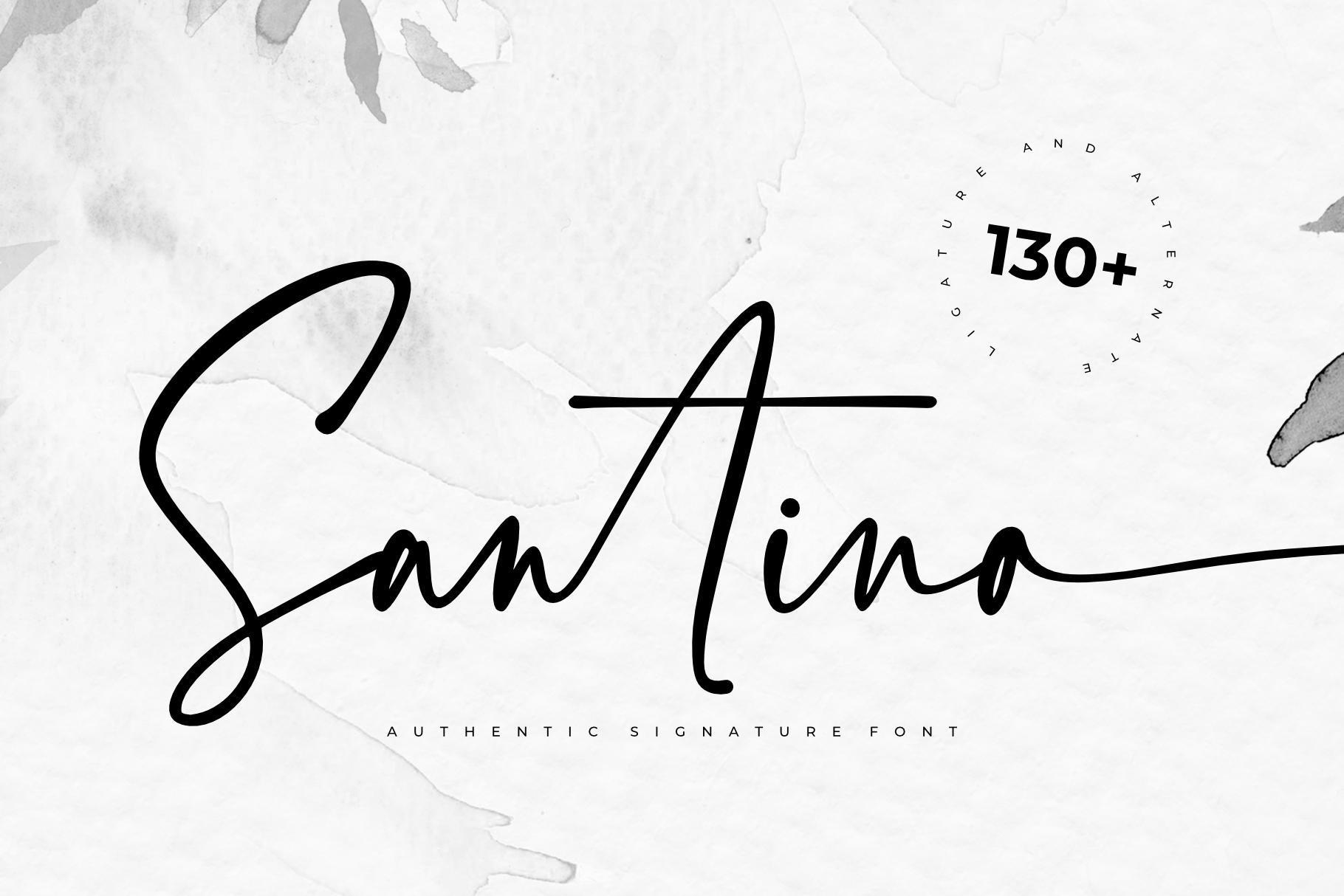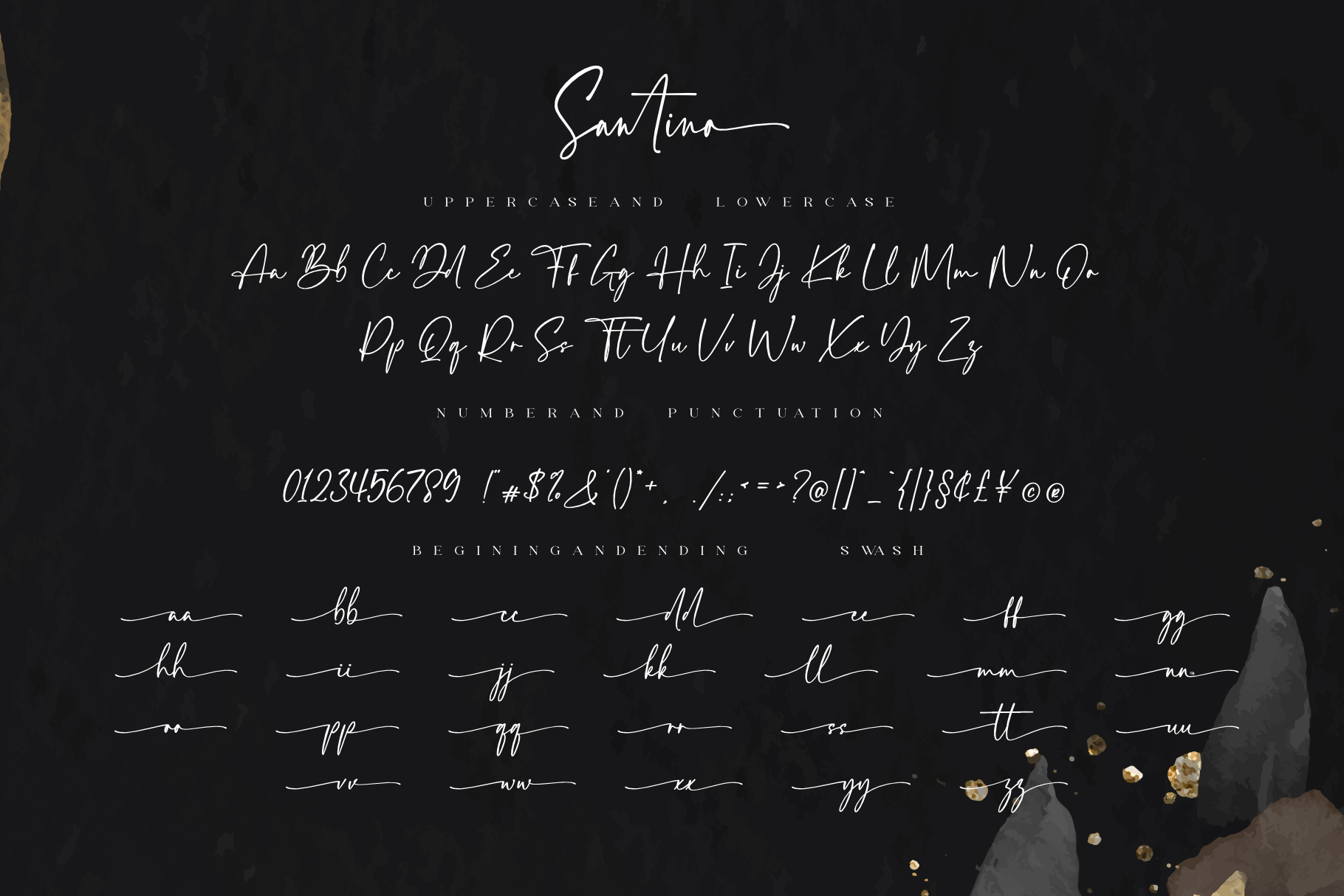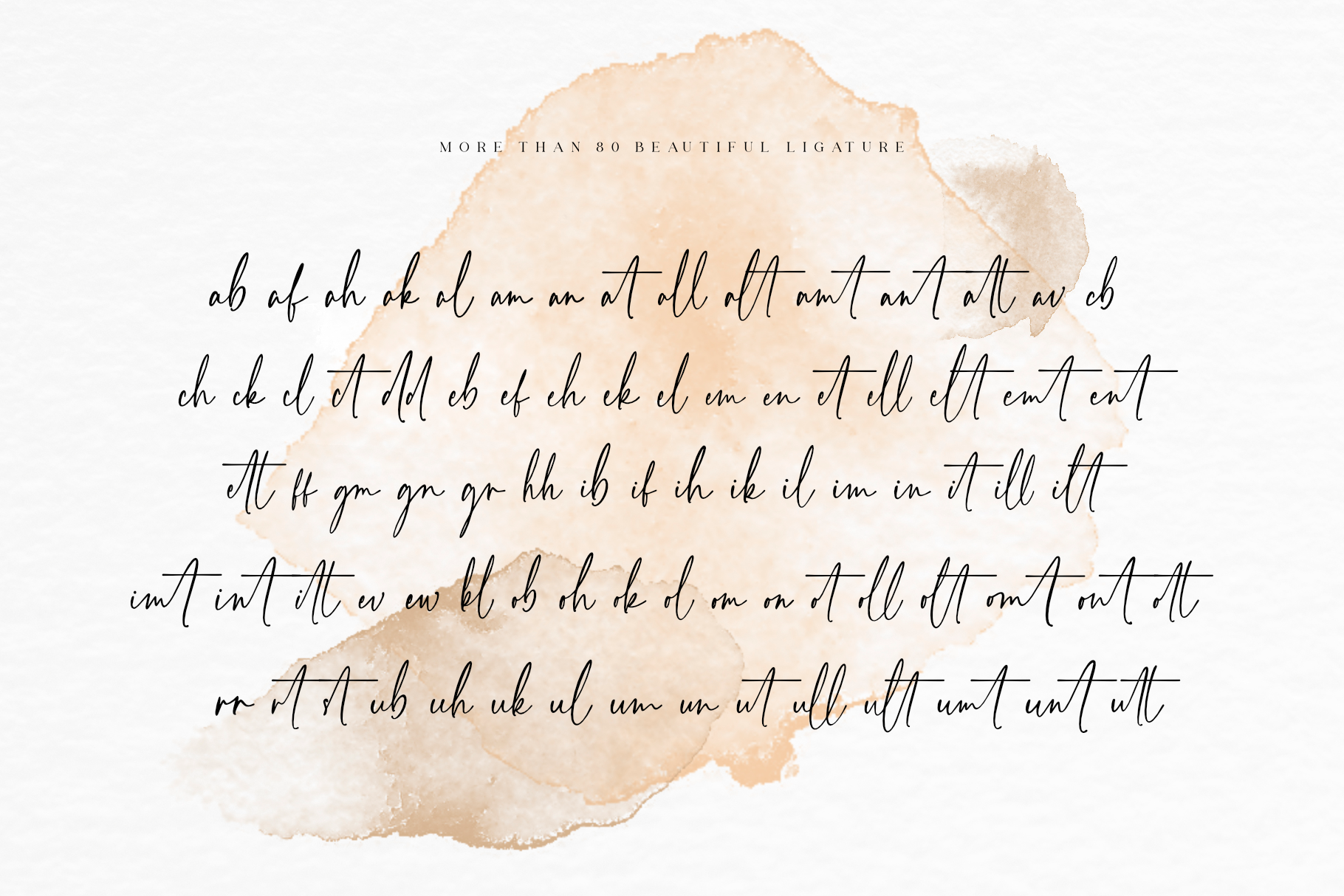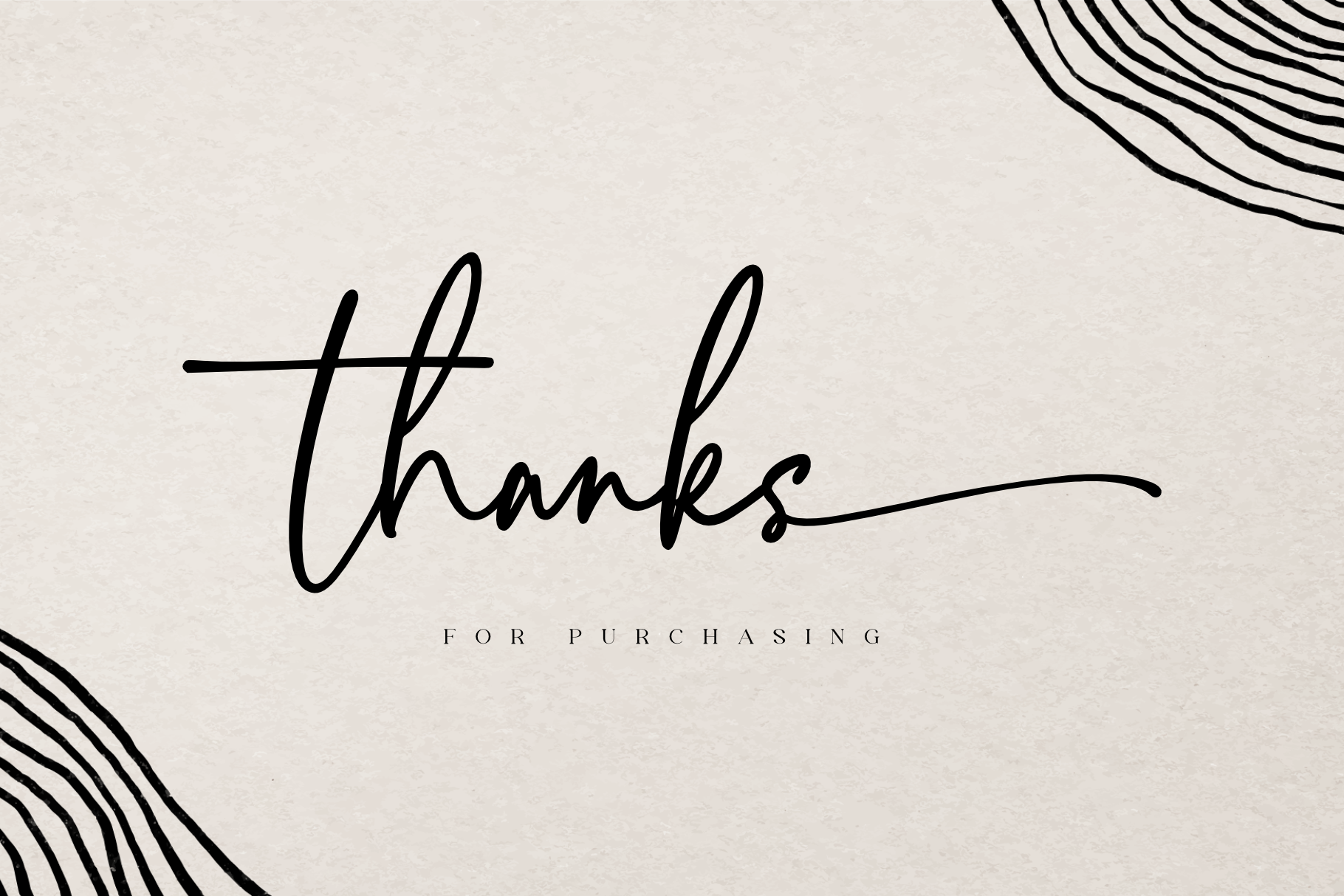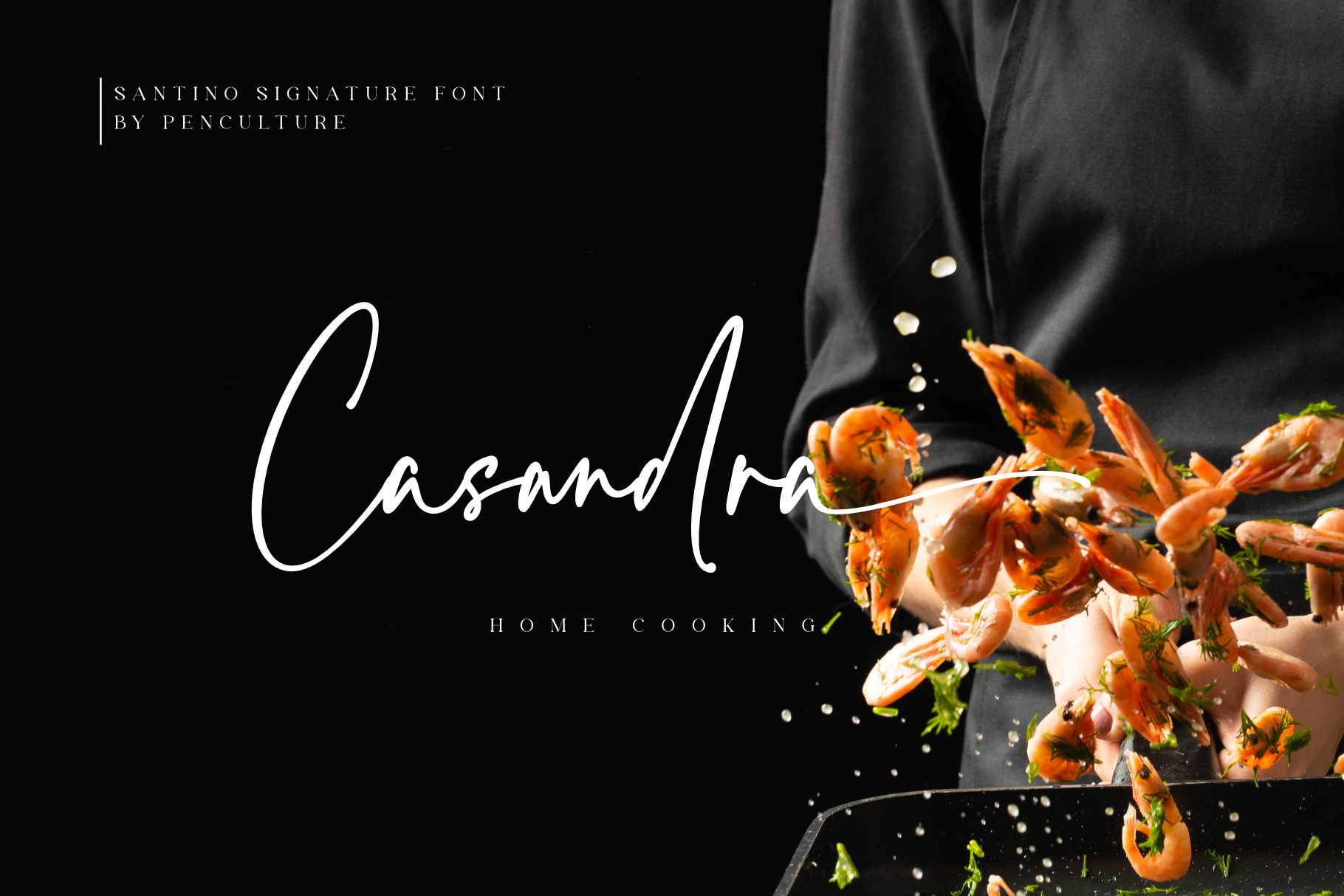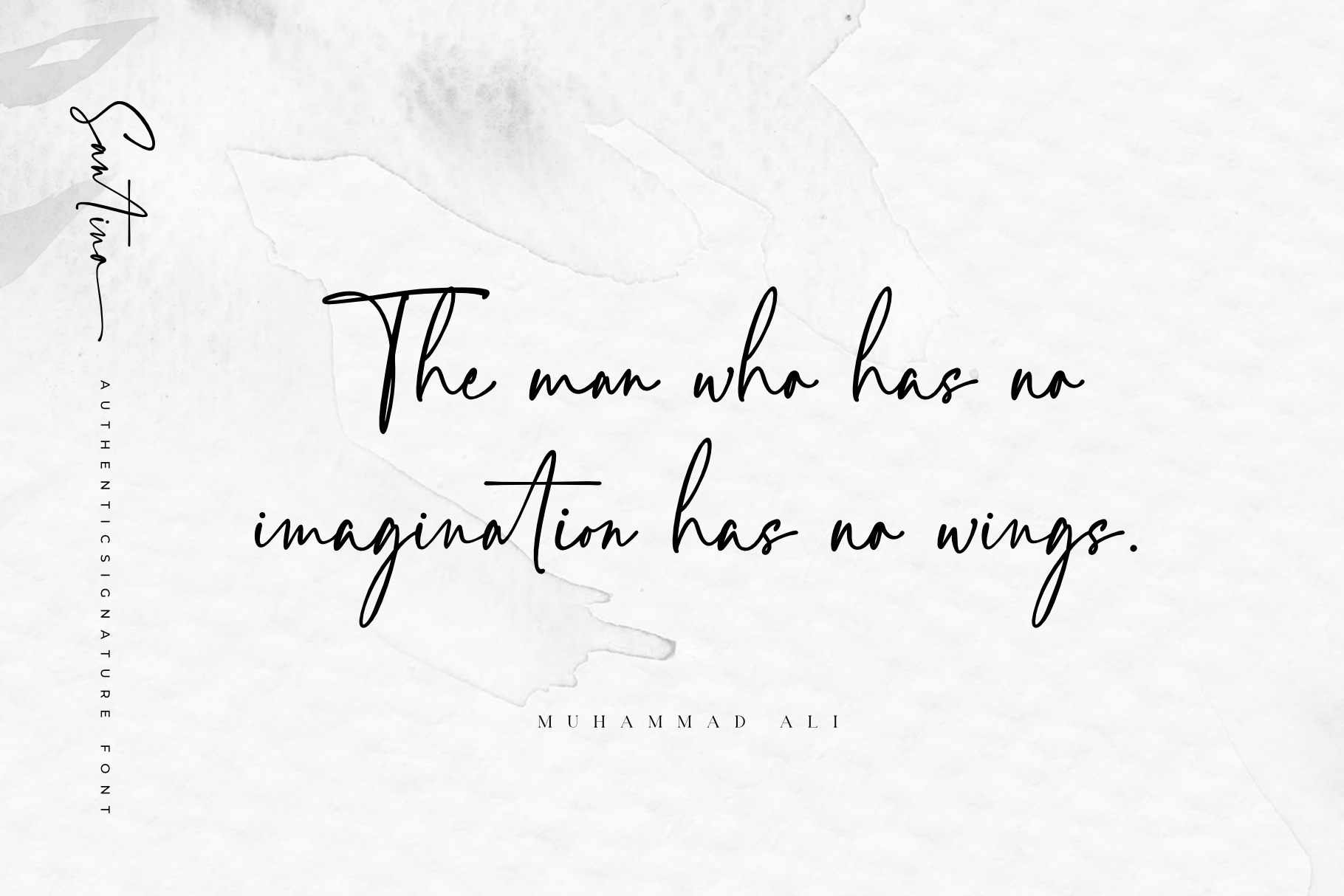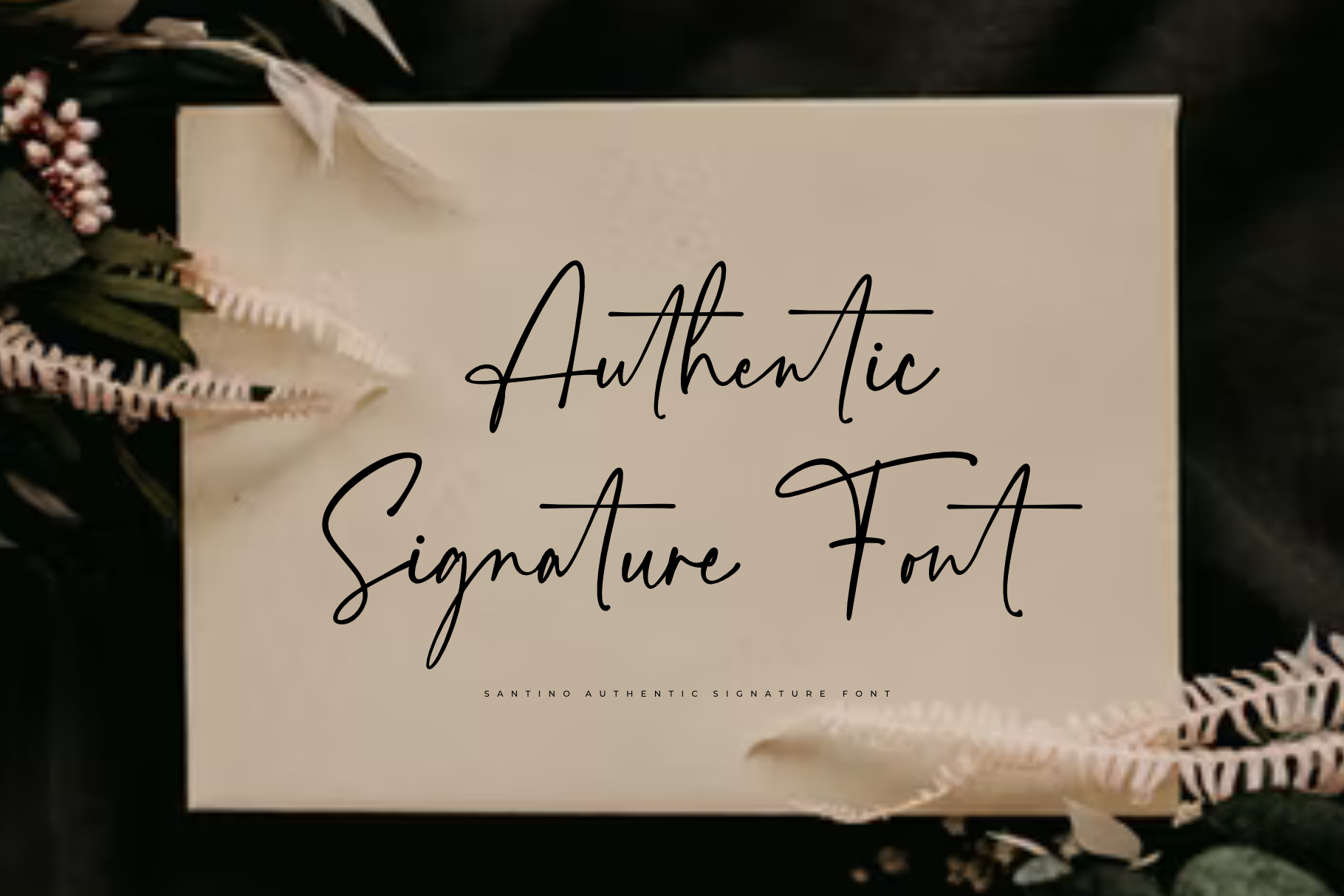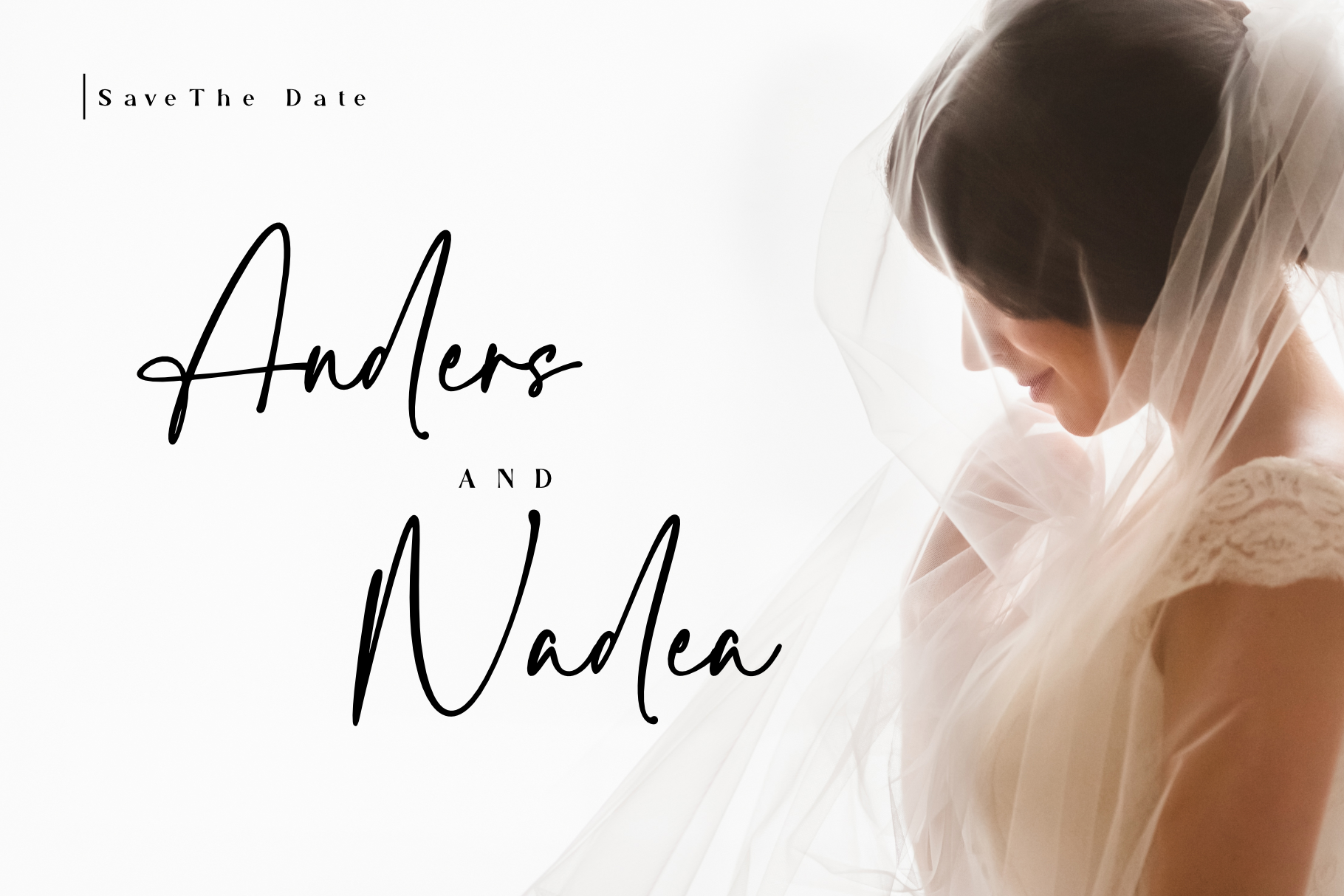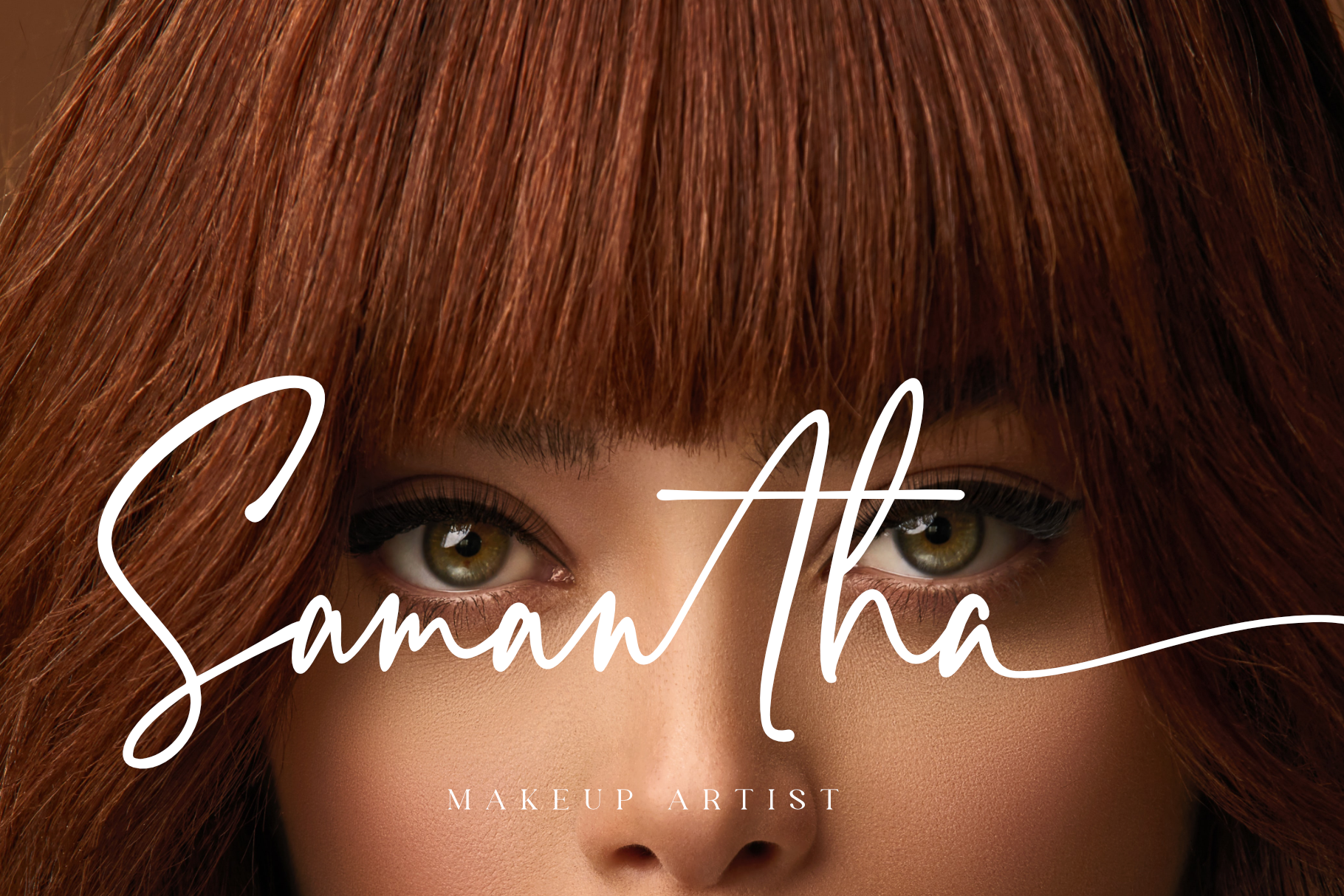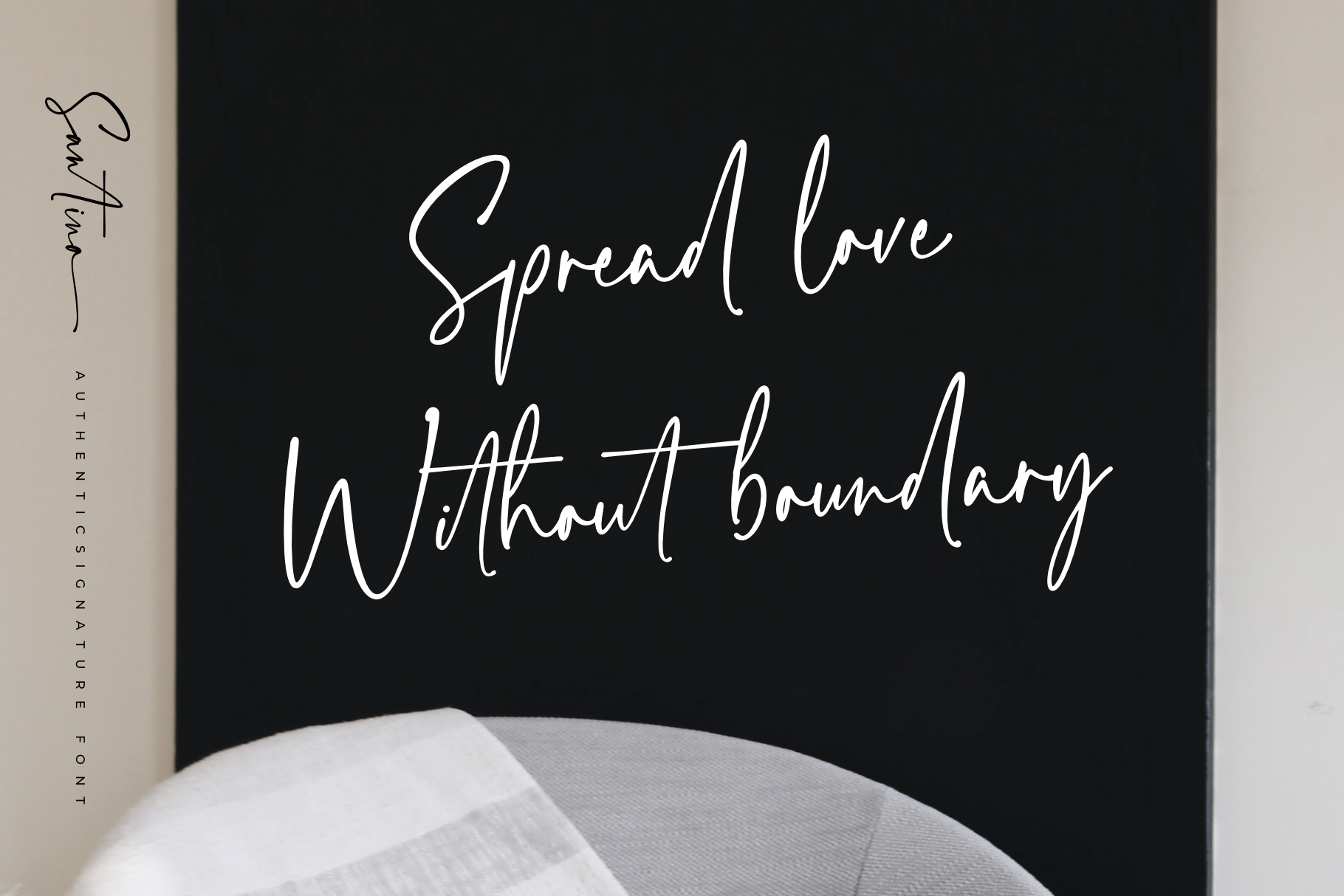
- Santino – Authentic Signature Font
Introducing Santino – Authentic Signature Font
This font was born with a sweet touch of hand lettering technique, with a unique and beautiful shape that makes this font very authentic. This font include uppercase and lowercase, number and punctuation, have more than 80 ligature, and beginning and ending swash in lowercase.